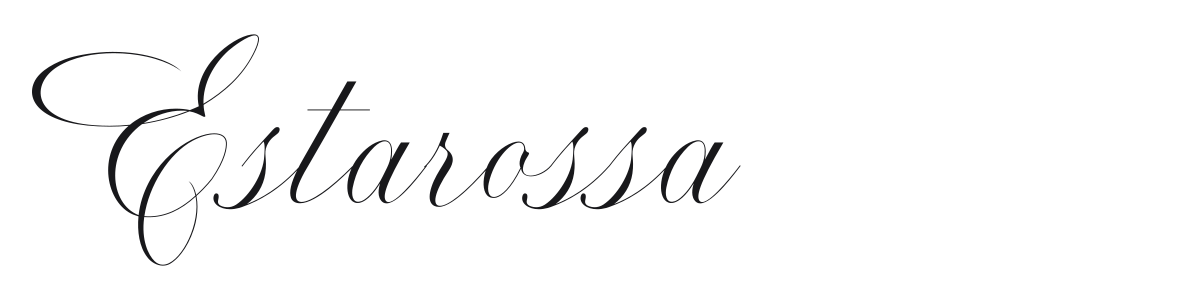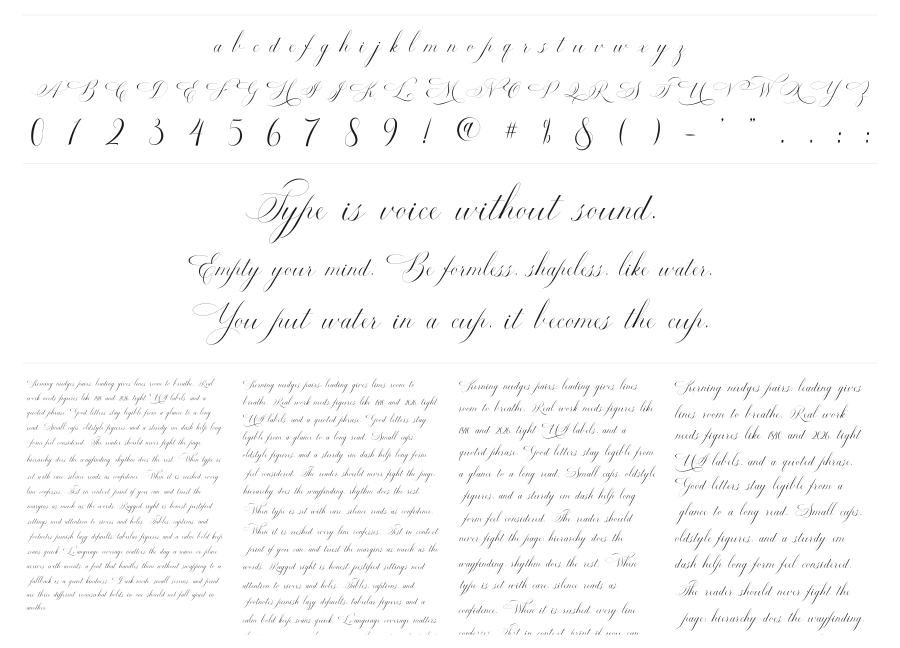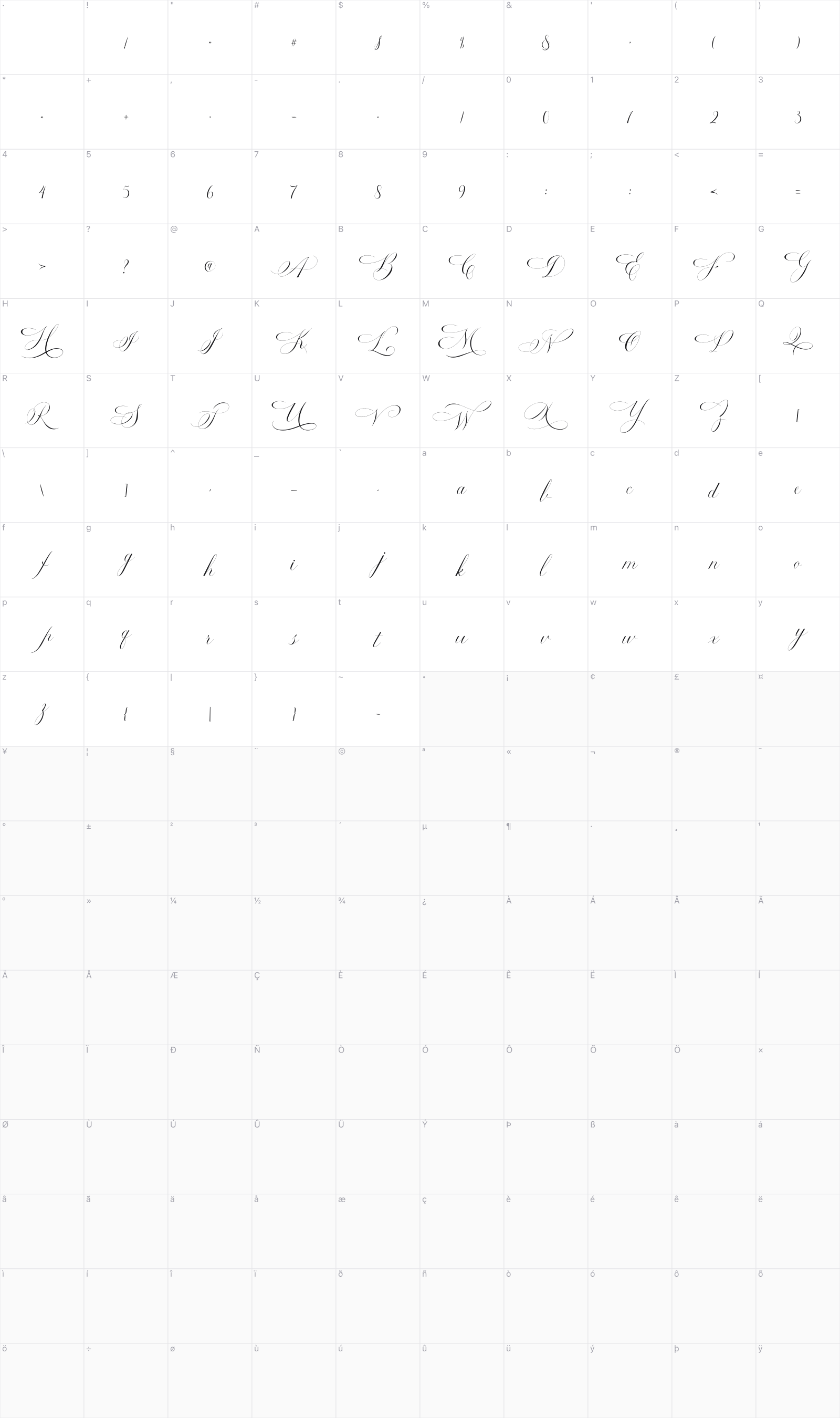
Estarossa
Estarossa is a flowing formal script rooted in the copperplate calligraphic tradition, with dramatic stroke contrast between razor-thin upstrokes and full, rounded downstrokes. Generous ascenders and descenders sweep into long looping flourishes that give it an unmistakably romantic, high-end quality. It thrives on wedding invitations, luxury branding, and any context where classical elegance is the goal.